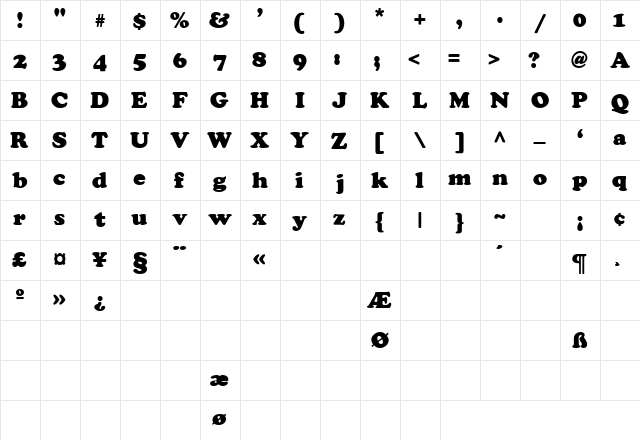
Cooper SSi Extra Black
Design Context for Cooper SSi Typeface
Cooper SSi offers clean, dependable letterforms without strong stylistic allegiance, making it a practical choice for designers who need flexibility.